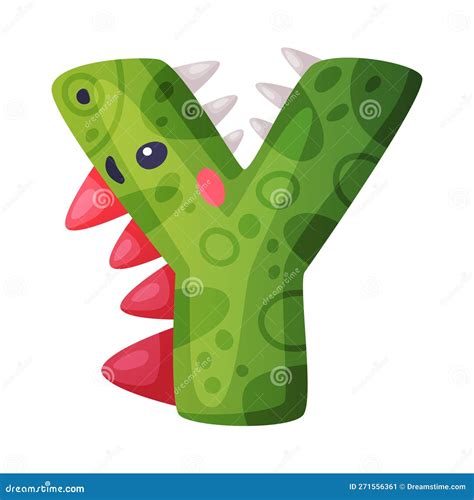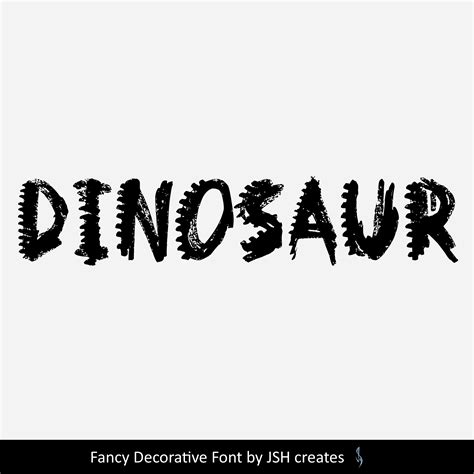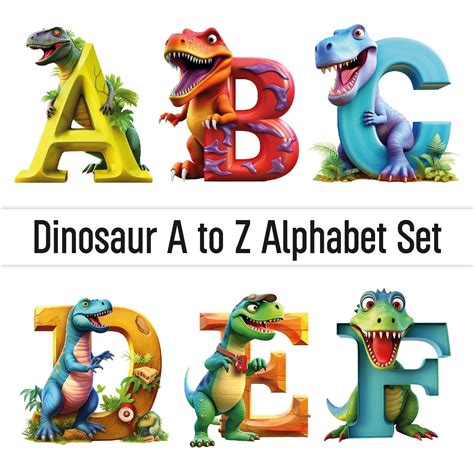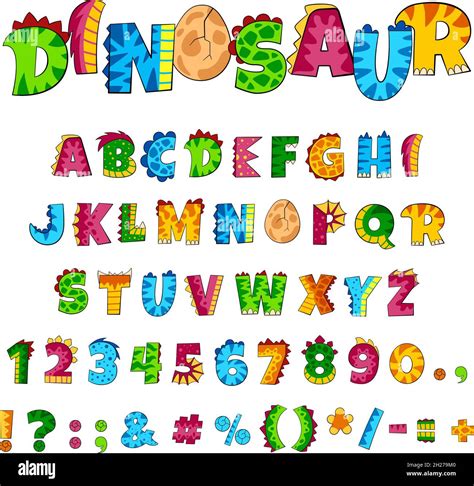
Design a visually catch project for minor or educational material often starts with selecting the perfect Font For Dinosaur Theme project. Whether you are make birthday invitation, classroom posters, or digital scrapbook page, the right composition sets the tone for a prehistorical adventure. The challenge lies in equilibrize readability with the rugged, ancient aesthetic that dinosaurs evoke. From jag, fossil-inspired typefaces to bold, playful block letters, the options uncommitted today allow creators to transport their audience rearward to the Mesozoic era with just a few clicks. This guidebook explores the good composition choices, pairing strategy, and design tips to ensure your dinosaur-themed conception yaup with personality.
Choosing the Best Typefaces for Your Prehistoric Designs
When selecting a Font For Dinosaur Theme, you must first consider the target audience. Projection for immature children often gain from labialise, friendly lettering that feel accessible, while designs for scientific presentations or museum-style presentation might involve more sharp, strong-growing, or textured aesthetics.
Categories of Dinosaur Typography
- Chiseled and Stone-Textured: These mimic the look of ancient cave carvings or fossils, perfective for head.
- Playful Block Fonts: Thick, heavy-set letters that resemble construction block or cartoon-style lettering.
- Hand-Drawn Styles: Ideal for a "uncovering" journal expression, give the impression that the schoolbook was written by a paleontologist in the battlefield.
- Distressed and Grunge: These cater a weather-beaten feel, as if the letters have been buried in the ground for millions of age.
Design Best Practices for Themed Projects
A successful design is not just about the baptistry; it is about how that font interacts with your visual ingredient. When act with a dinosaur motive, proportion is essential to prevent the layout from turn too cluttered.
| Style Goal | Urge Font Type | Suggested Color Palette |
| Kid-Friendly/Party | Bubble or Rounded Sans-Serif | Bright Green, Orange, Yellow |
| Educational/Scientific | Serif or Clean Slab-Serif | Earth tones, Slate Grey, Moss |
| Adventure/Exploration | Distressed or Slab-Serif | Deep Brown, Rust, Forest Green |
⚠️ Note: Always ascertain the kerning when use midst, blocky face, as letters can sometimes crowd each other and become illegible at small sizes.
Pairing Fonts Like a Pro
You should never rely on a individual typeface for an integral undertaking. Pairing your exhibit font - the one used for titles - with a clean, legible body font is a central rule of designing. If your headline uses a heavy, dinosaur-themed cosmetic baptistery, duet it with a elementary, impersonal sans-serif for any supporting paragraph. This guarantee the reader's eye isn't drown by competing ornamental styles.
Utilizing Color and Texture
The personality of your design often comes from the handling of the schoolbook itself. Applying gradient or stone-like texture to your elect Font For Dinosaur Theme can significantly enhance the submerging. Contribute a drop shadow or a thick precis can also help the schoolbook stand out against meddlesome ground like jungle or volcanic landscape.
- Layering: Use a dark outline around light-colored textbook to maintain legibility over images of dense flora.
- Event: Try supply a "chap" outcome across the letter to imitate the feel of fossilization.
- Line: Keep background constituent desaturated if your text is bluff and colourful.
Creating professional-grade dinosaur content is an engaging procedure that relies heavily on your alternative of typography. By focalise on readability for body text and prefer bold, thematic display baptistery for head, you make a cohesive visual experience. Always prioritize the proportion between the esthetical and the message, using colouration and texture to ground your blueprint. When you master these element, your project will successfully capture the majesty and excitement of the prehistorical world, leave a lasting encroachment on your hearing through the power of cautiously take inscription.